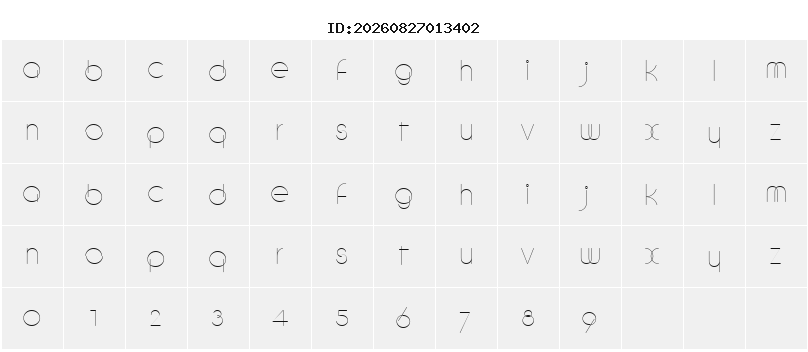
• Font Name: 893-CAI978
• Full Font Name: 893-CAI978
About 893-CAI978.ttf
893-CAI978.ttf is a modern, elegant sans-serif font designed for ultimate readability and visual harmony. Perfect for branding, headlines, web design, and print materials.